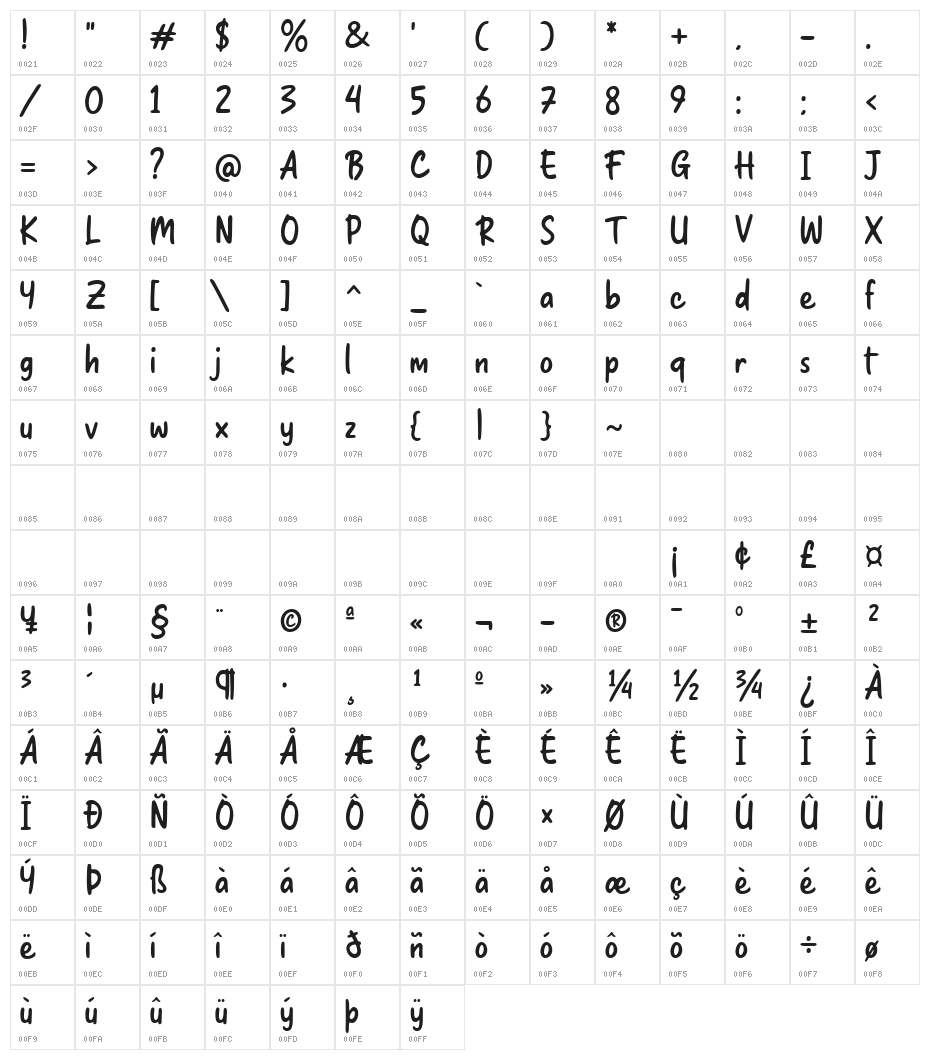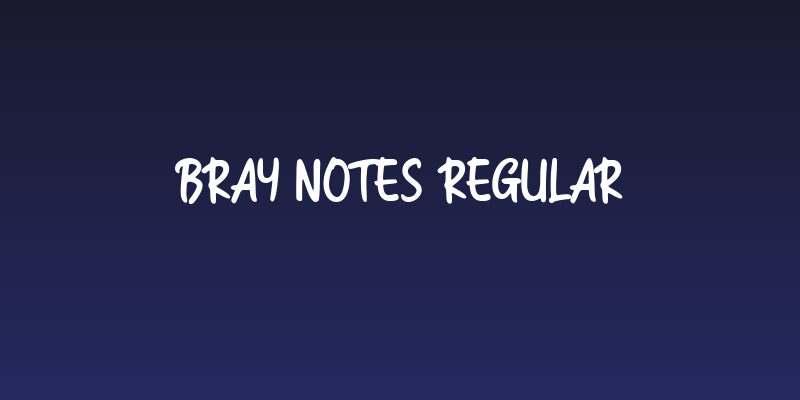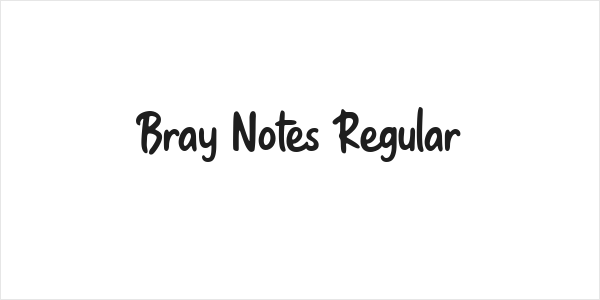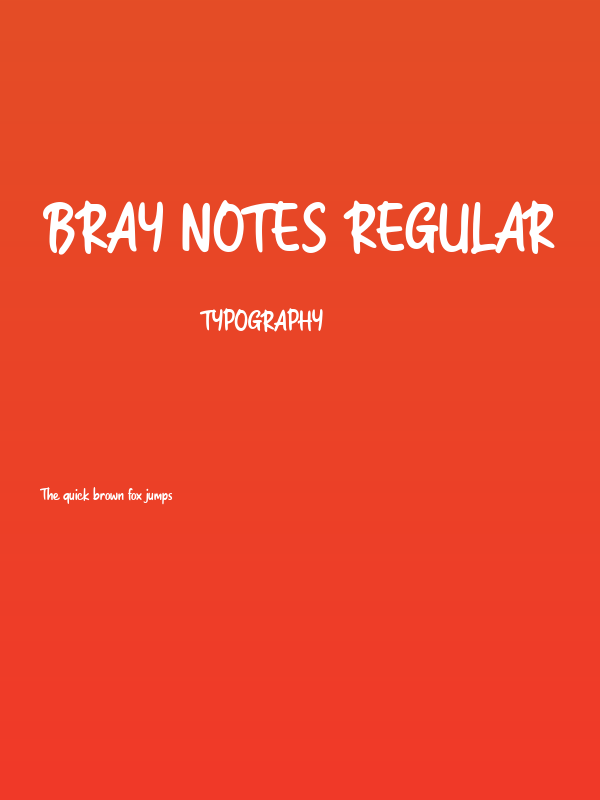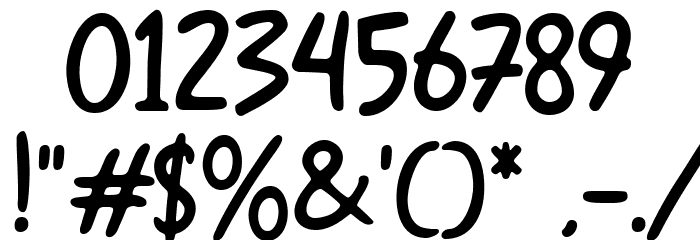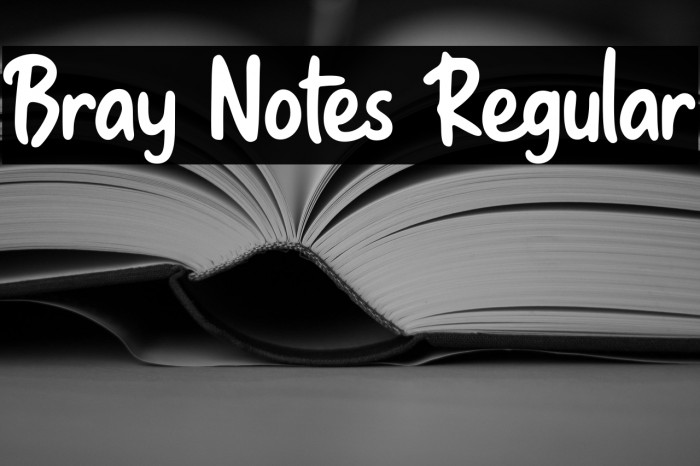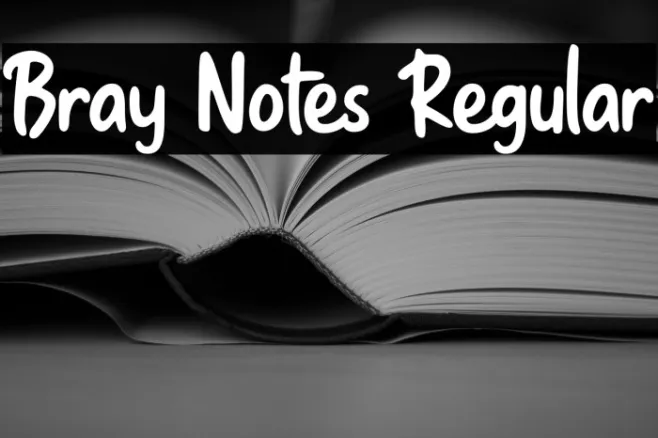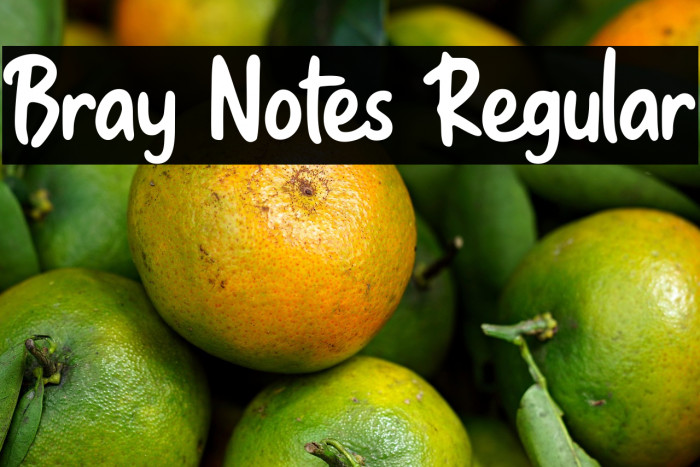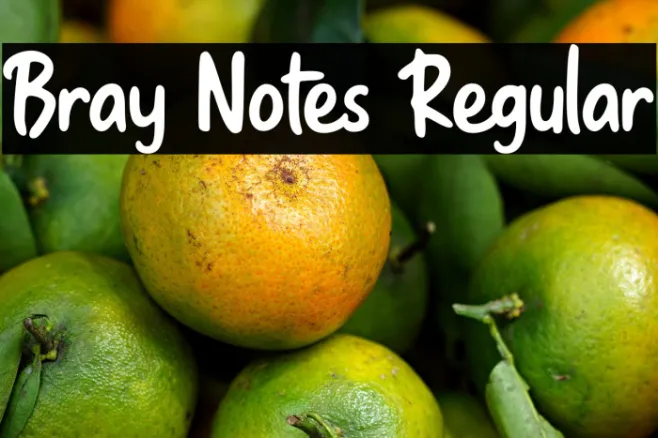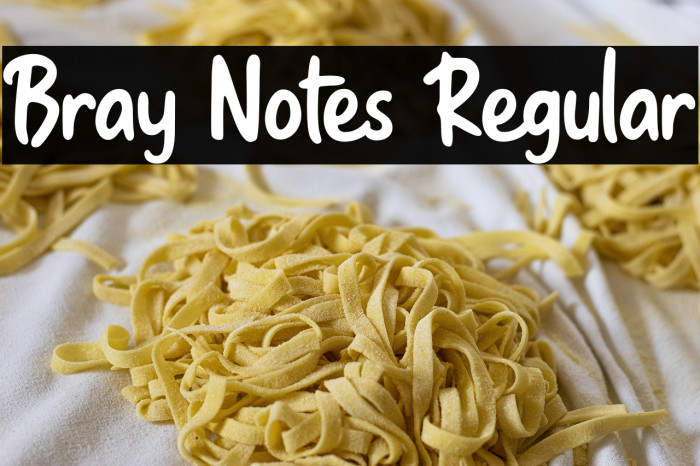
Bray Notes Regular Font
Bray Notes Regular Description
This font features a playful and casual handwritten style, characterized by its bold and rounded letterforms. The strokes are consistent in width, giving it a uniform appearance. The uppercase letters are slightly taller than the lowercase, maintaining a balanced and approachable look. The numbers and special characters are designed to match the overall style, ensuring cohesion across all elements. The font's informal nature makes it suitable for projects that require a friendly and relaxed tone.
| Proposed Projects | Ideal for greeting cards, children's books, casual branding, and social media graphics. |